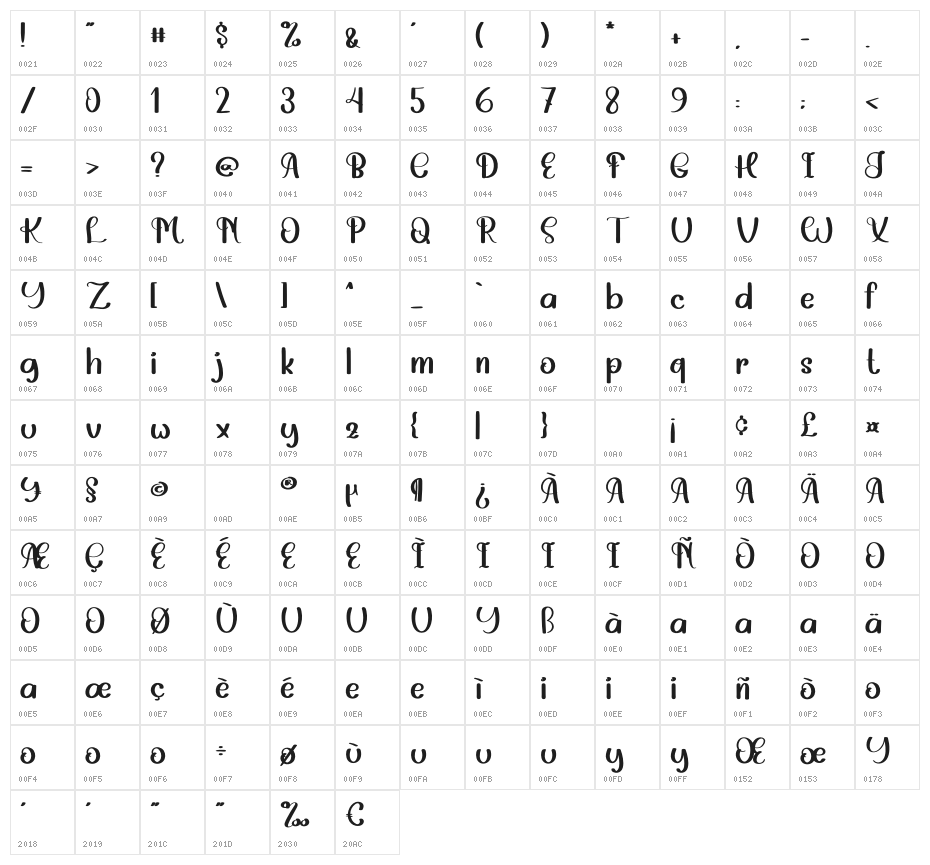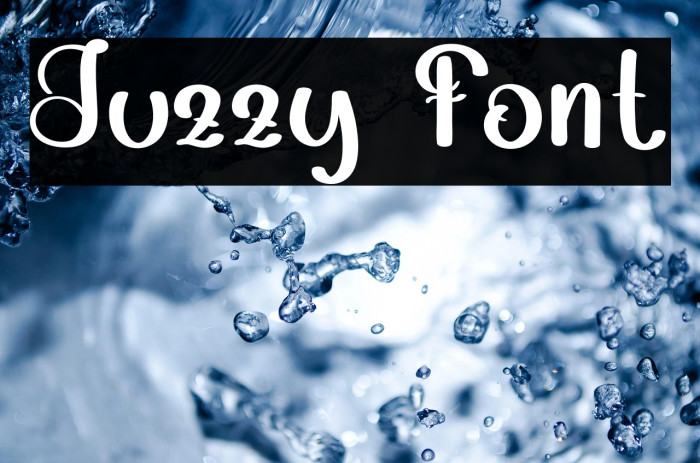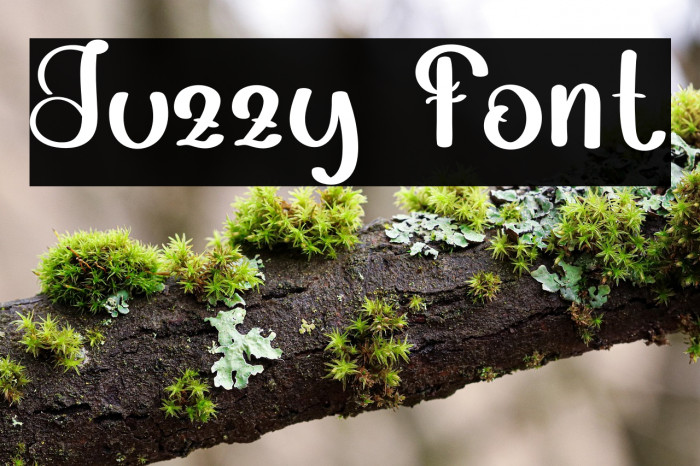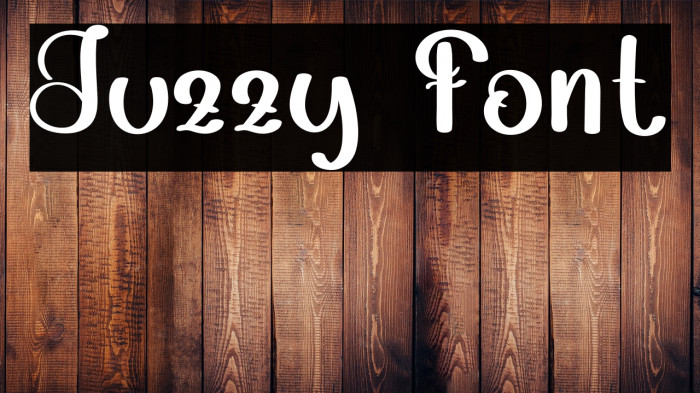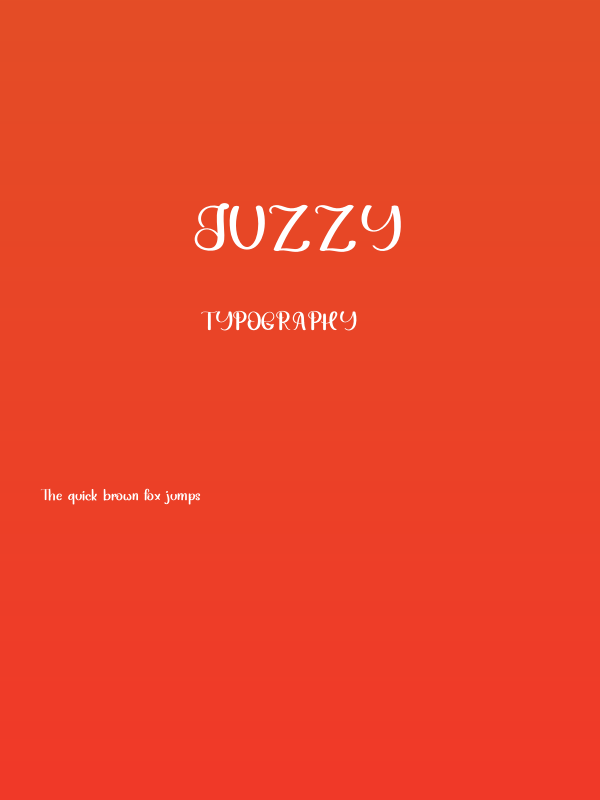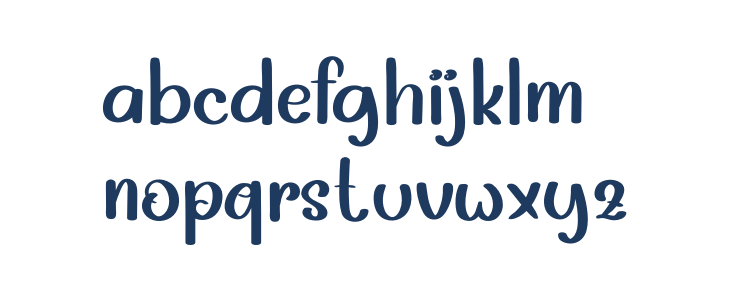
Juzzy Font
Juzzy Description
This font features a playful and whimsical style, characterized by its flowing curves and unique letterforms. The uppercase letters exhibit a decorative flair with swirls and loops, while the lowercase letters maintain a more consistent and rounded appearance. The numerals are bold and slightly exaggerated, adding to the font's overall charm. Special characters are creatively designed, complementing the font's lively aesthetic. This typeface is ideal for projects that require a touch of fun and creativity, making it suitable for invitations, greeting cards, and playful branding.
| Overall Style | Playful |
| Proposed Projects | Ideal for invitations, greeting cards, playful branding, and creative projects. |